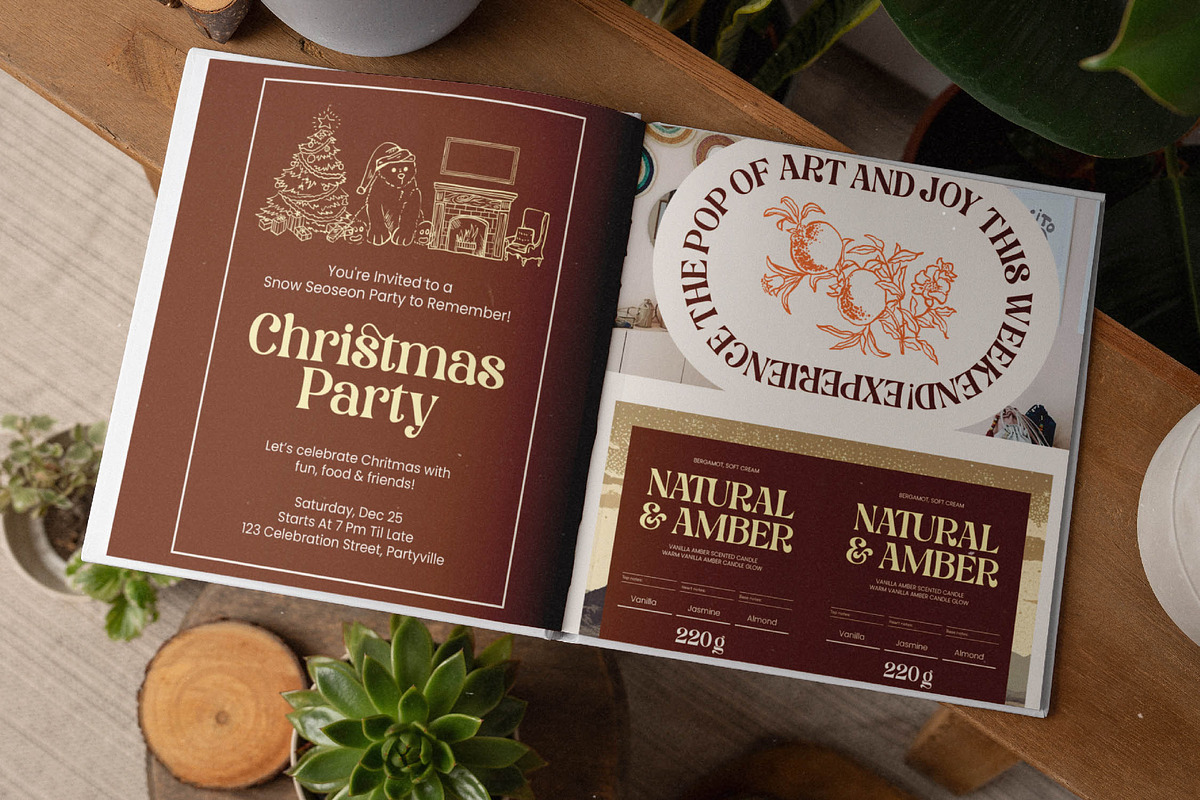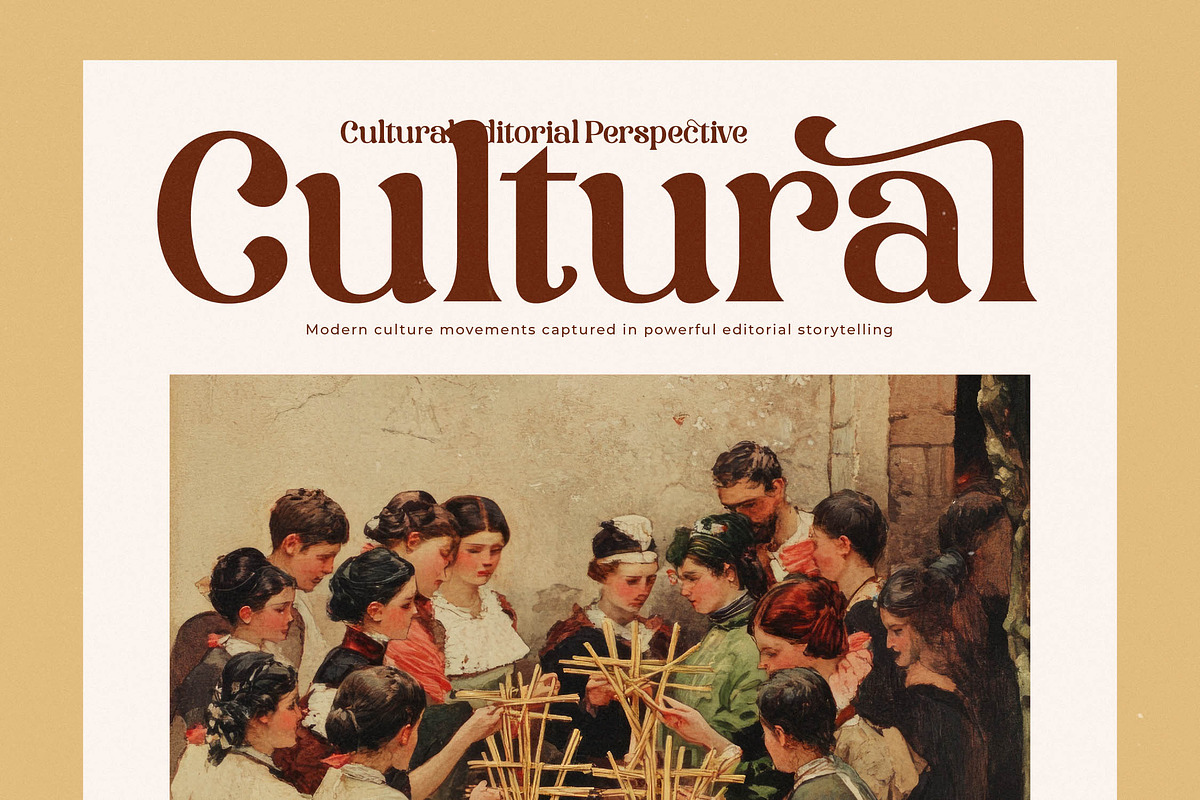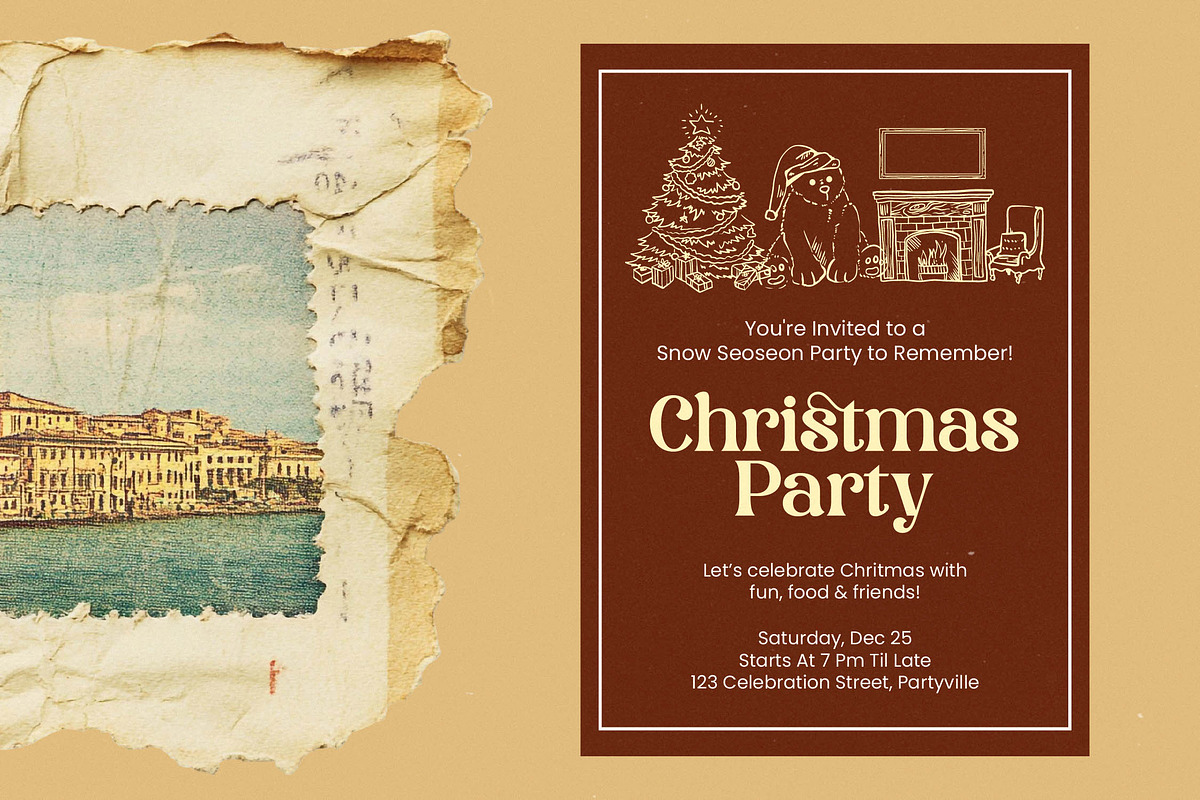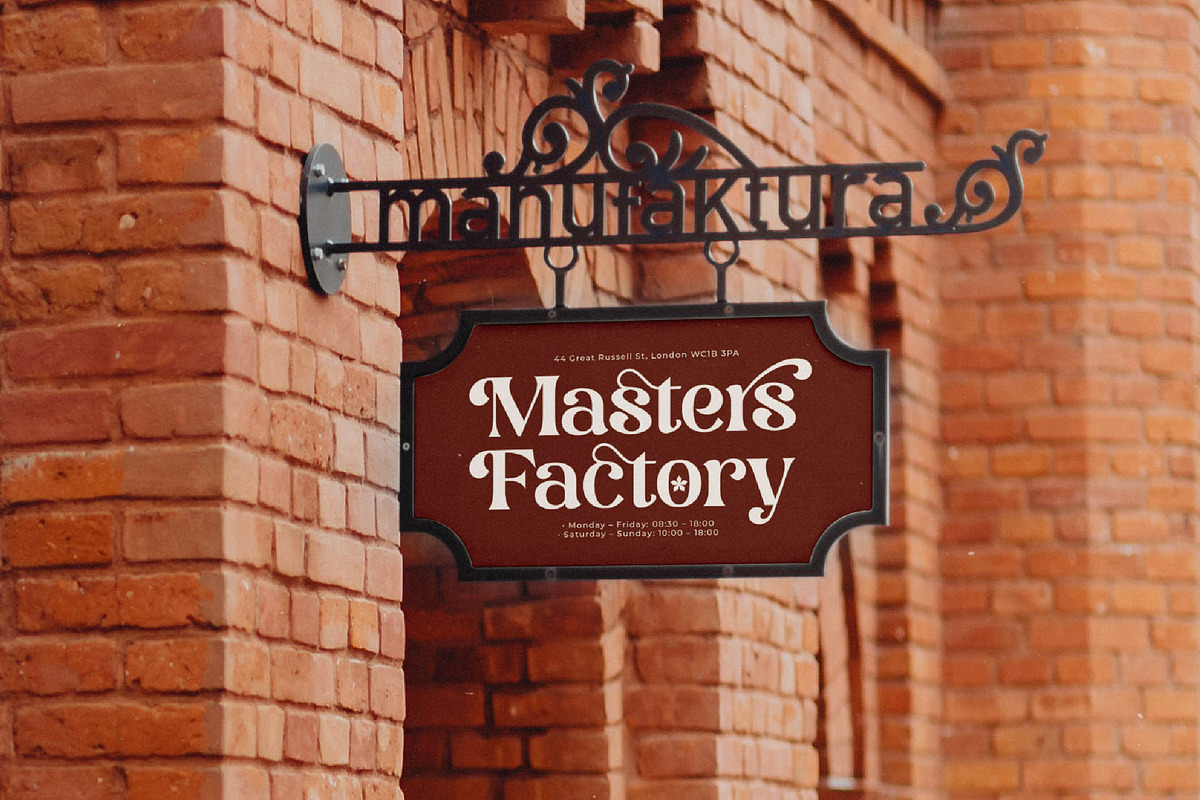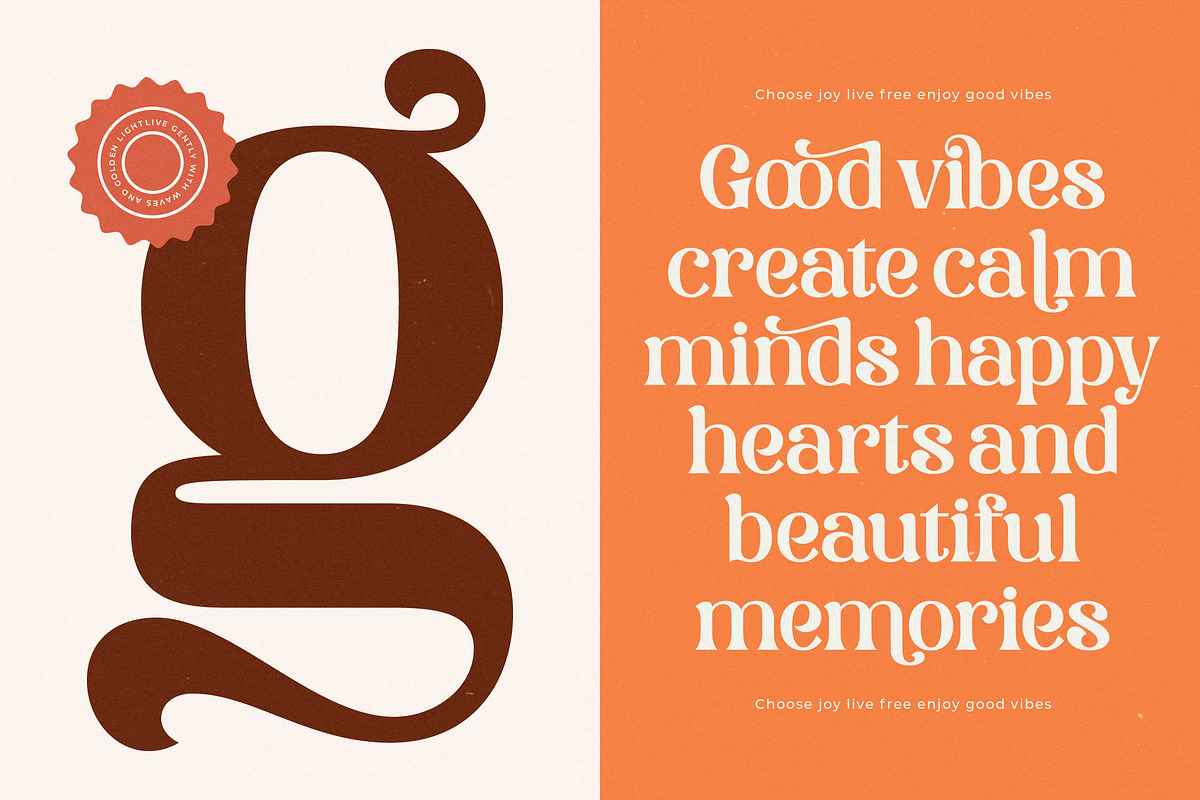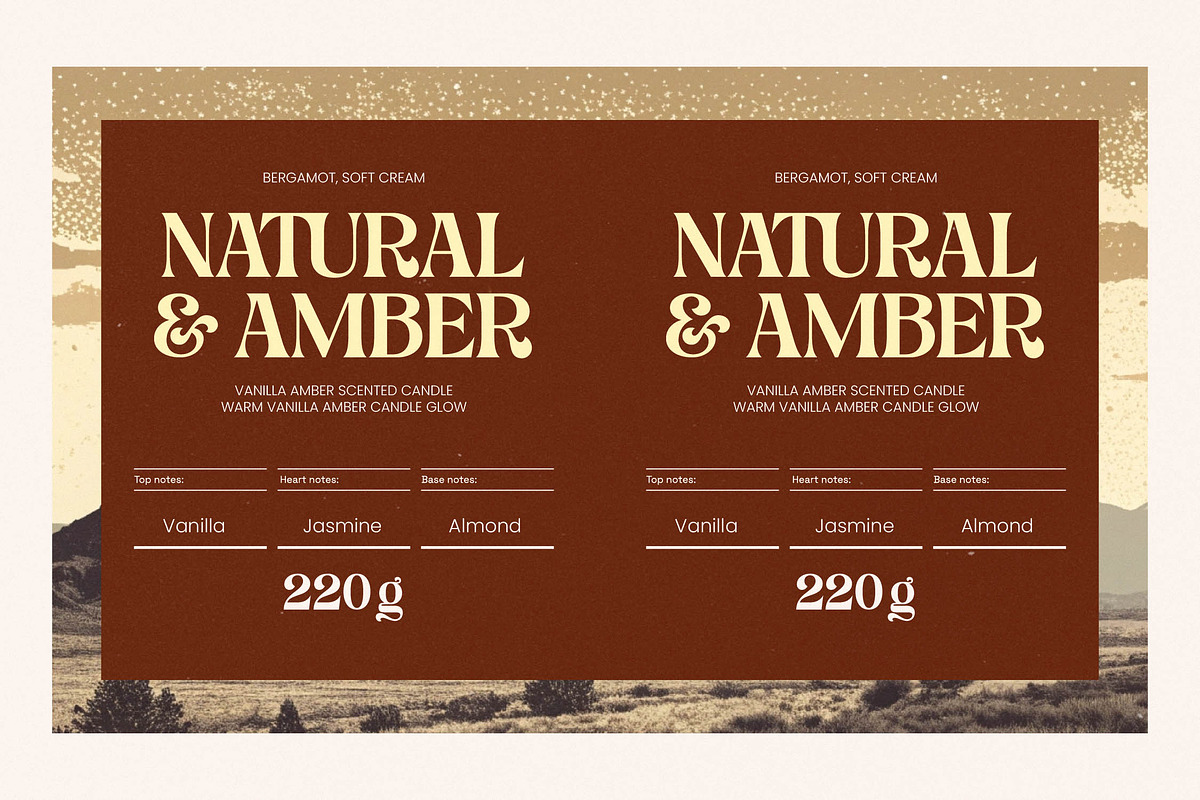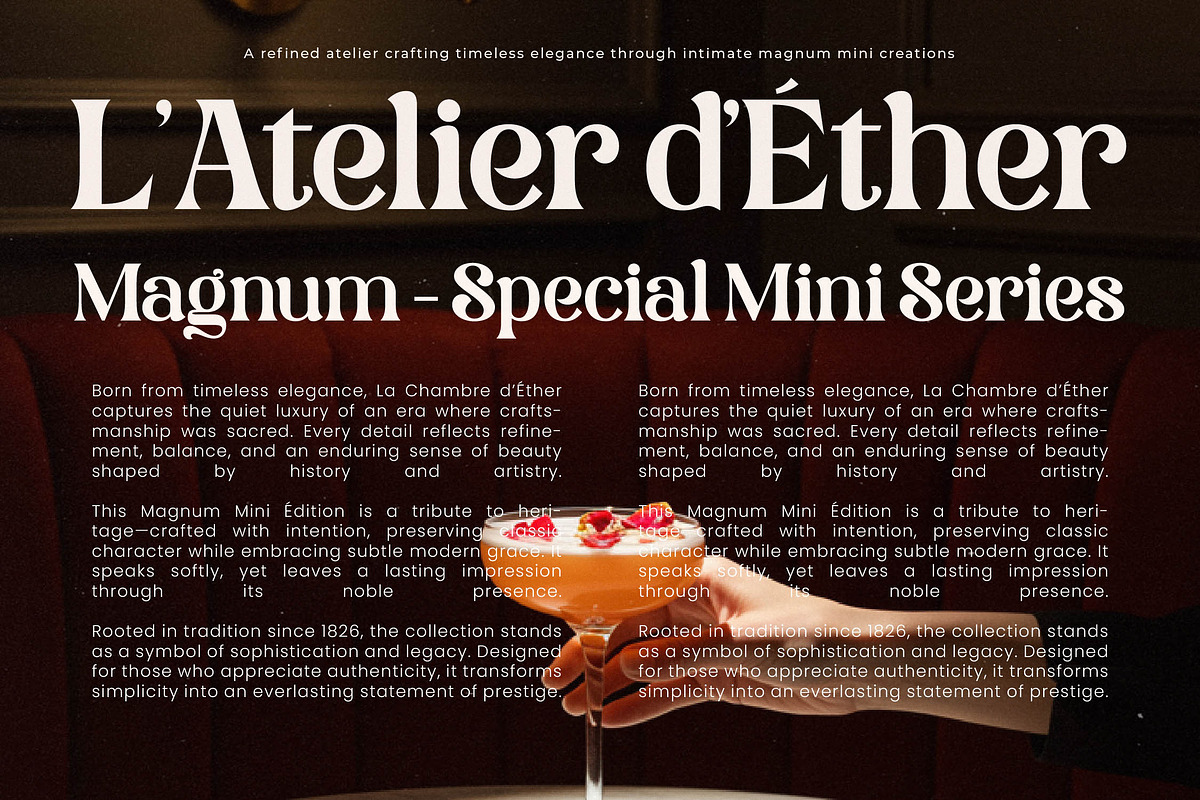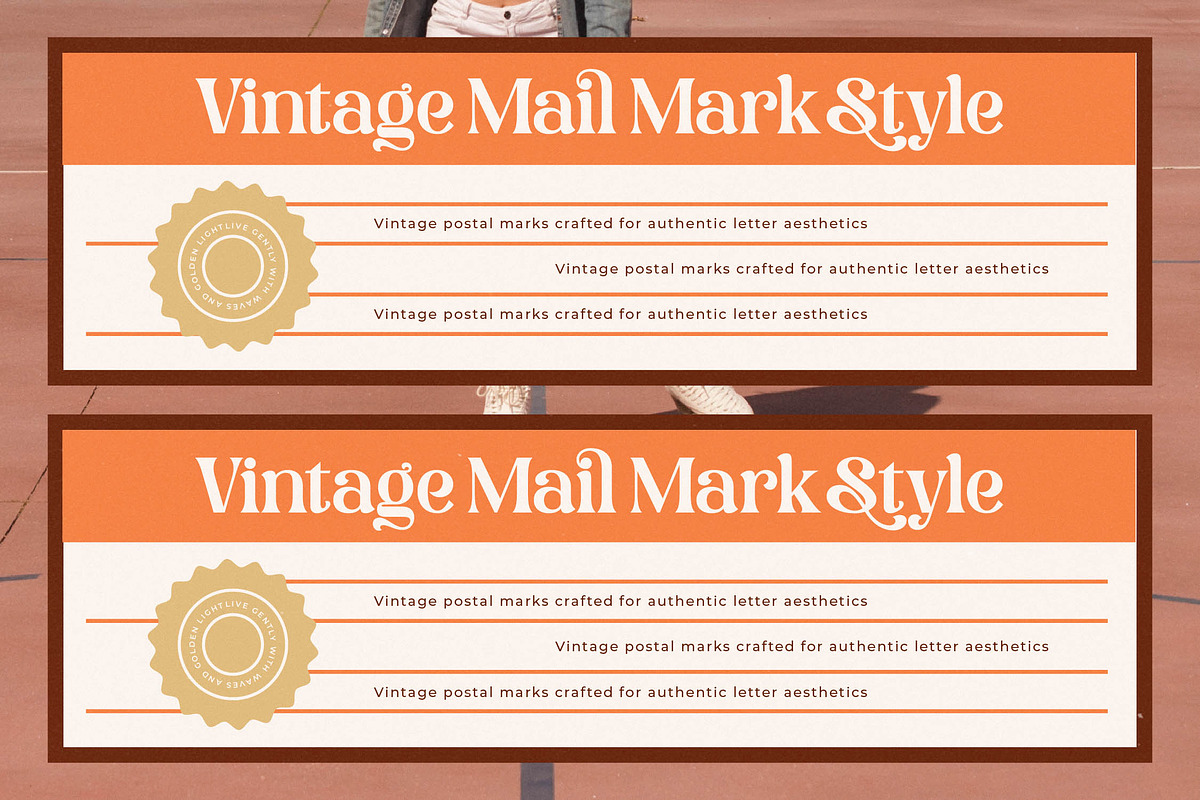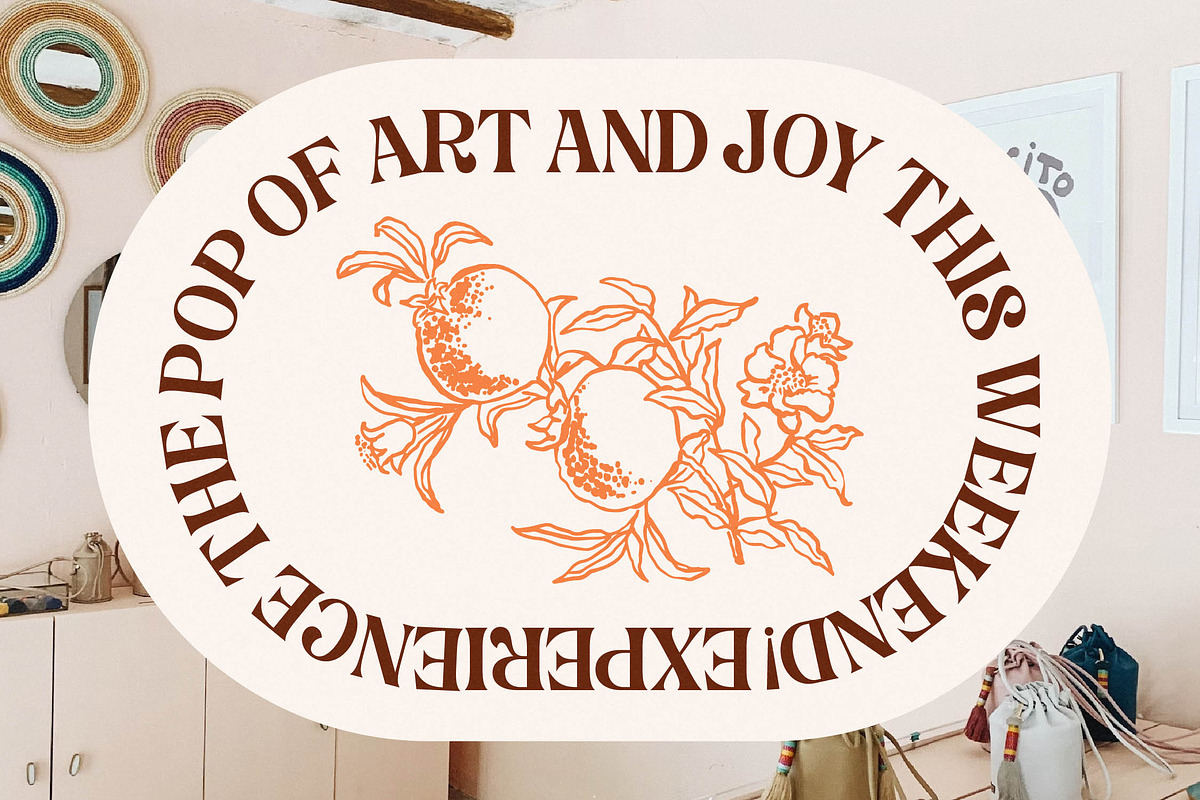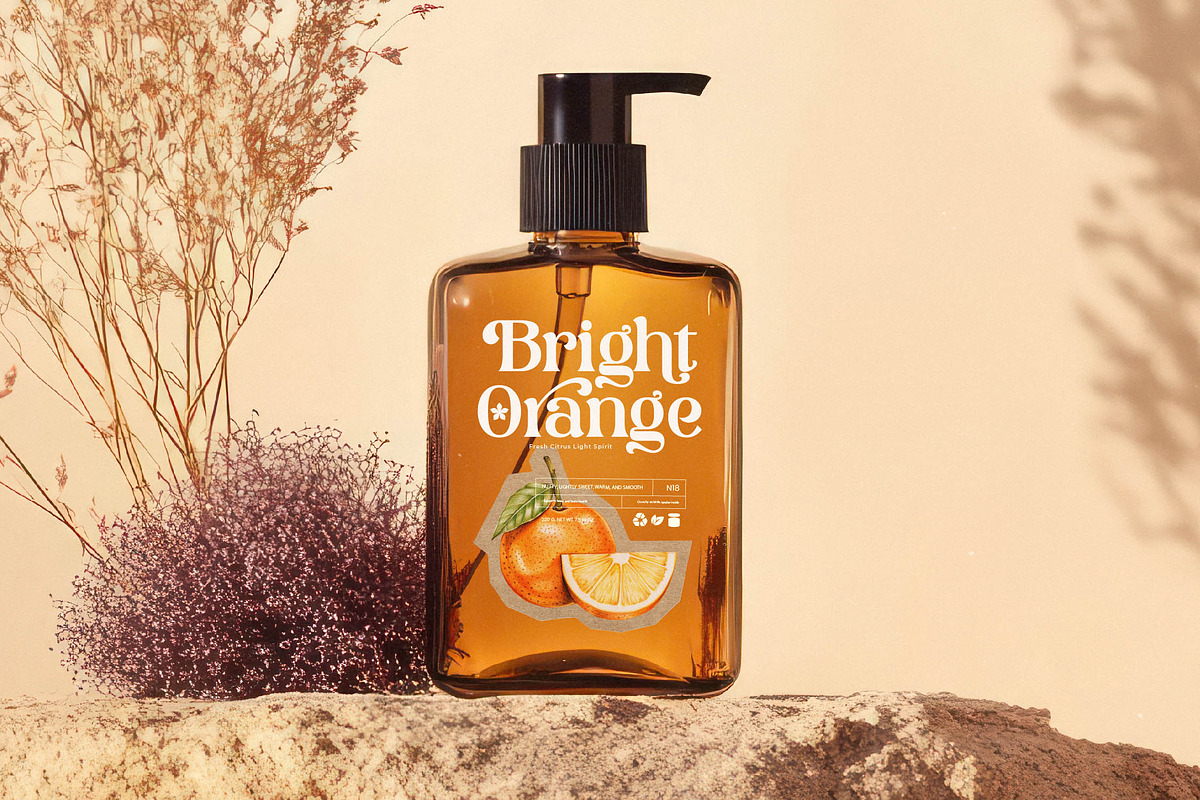
Corselust Modern Retro Serif
Corselust is a masterclass in sophisticated design, blending nostalgic charm with a sharp, contemporary edge. This typeface is crafted for those who want to command attention with a whisper rather than a shout.
Drawing inspiration from the golden era of editorial typography between 1986 and 1996, the font captures the essence of high-end lifestyle magazines and vintage boutique aesthetics. It reflects a time when character-driven design met the refined precision of modern craftsmanship.
The personality of this modern serif display is defined by its luxury typography and high-contrast serif strokes. It provides an immediate branding impact for projects that require a high-fashion, editorial font look that feels both established and fresh.
Perfectly aligned with the current modern serif trend, this typeface fulfills the growing demand for editorial display fonts that offer more than just legibility. It is built for character-driven typography enthusiasts who want to break away from sterile designs and embrace expressive curves.
This versatile typeface excels in logo design and high-end branding systems, particularly within the fashion and beauty sectors. It is also an ideal choice for editorial layouts, luxury packaging, and bespoke wedding invitations that require a touch of timeless class.
Technically robust, the package includes a wide array of ligatures and alternates to give your text a custom-lettered feel. It also features beautiful swashes and full multilingual support with international characters to ensure global compatibility for your creative projects.